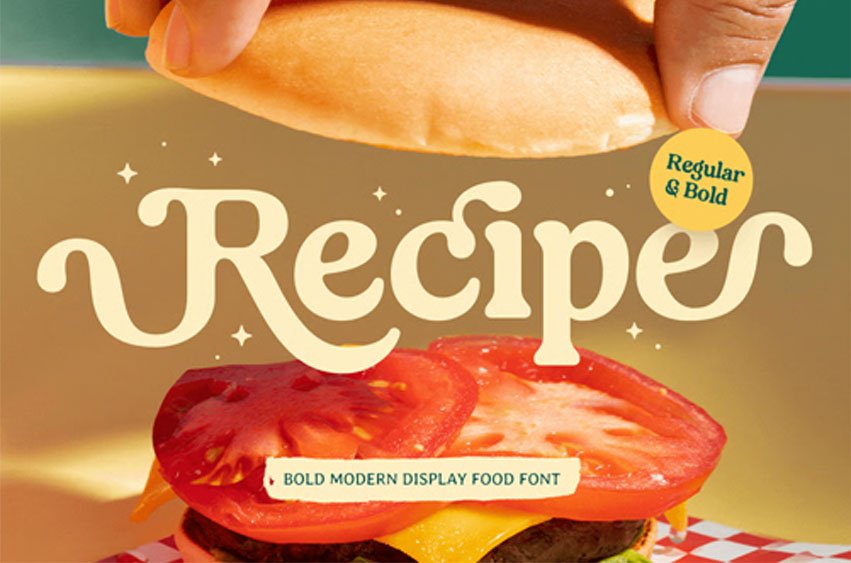
Recipe Font is a bold modern display food font designed to bring delicious energy and strong visual flavor to your typography. With thick strokes, friendly curves, and a bold contemporary attitude, this typeface creates an appetizing tone that feels vibrant, inviting, and instantly memorable.
Built for food-focused branding, Recipe works beautifully across restaurant logos, café menus, recipe cards, product packaging, snack labels, posters, signage, social media promotions, and digital marketing visuals. Its bold structure keeps every headline clear and impactful, helping your food brand stand out across both print and digital layouts.
Whether you’re launching a culinary brand, designing menu highlights, creating packaging for snacks or beverages, or building cheerful food campaigns, Recipe provides a bold typographic foundation that makes every word feel tasty, modern, and full of personality.
Inspiration Behind Recipe
Recipe is inspired by modern food packaging and bold culinary branding—where thick shapes and playful rhythm create a more appetizing and approachable identity. The design focuses on strong visual weight and smooth flow to support food-related projects with a fresh, flavorful, and brand-ready look.
Recipe Font Features:
- Bold modern letterforms with appetizing food-brand character
- Perfect for restaurant branding, menus, and packaging design
- Strong readability for product names and promotional headlines
- Prepared with 2 weights: regular and bold version
- Friendly shapes for inviting and delicious typography
- Uppercase, lowercase, numerals, and punctuation included
- OpenType features for polished professional typesetting
Perfect For
- Food logos, restaurant branding, and café identity systems
- Menu headers, recipe cards, and promotional graphics
- Packaging, labels, stickers, and snack product branding
- Posters, signage, banners, and in-store marketing visuals
- Social media promotions and food campaign designs
Multilingual Support
Make your food branding look irresistibly bold with Recipe—a modern display food font built for delicious visual impact.